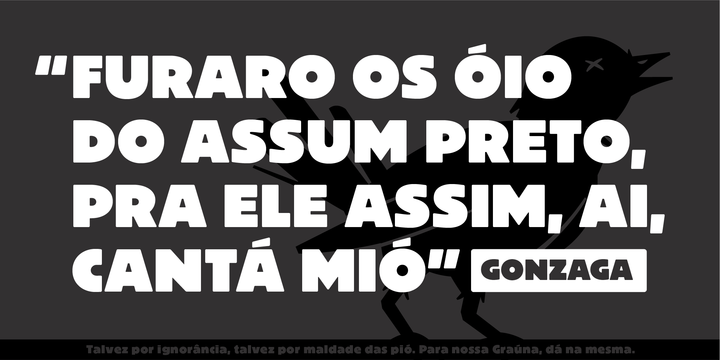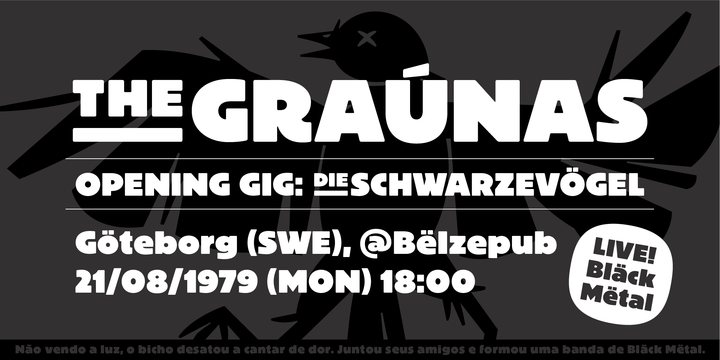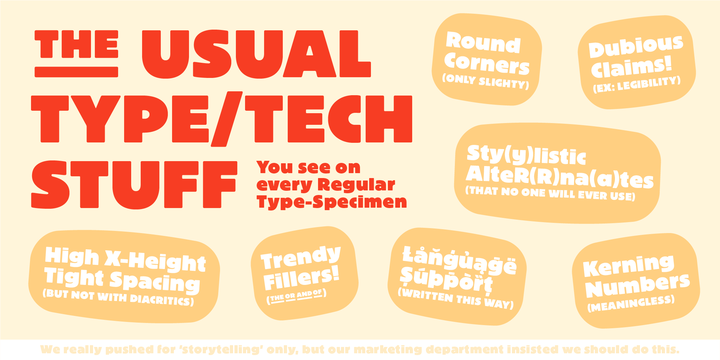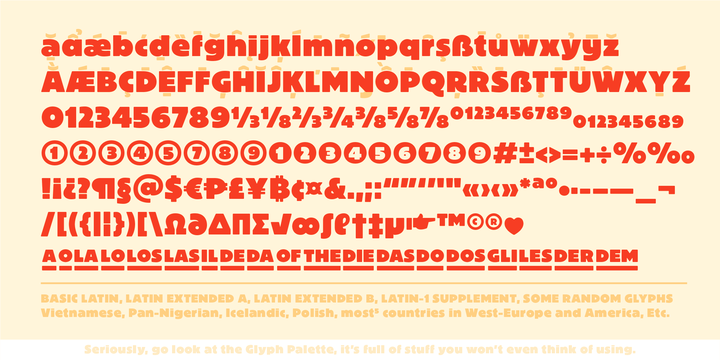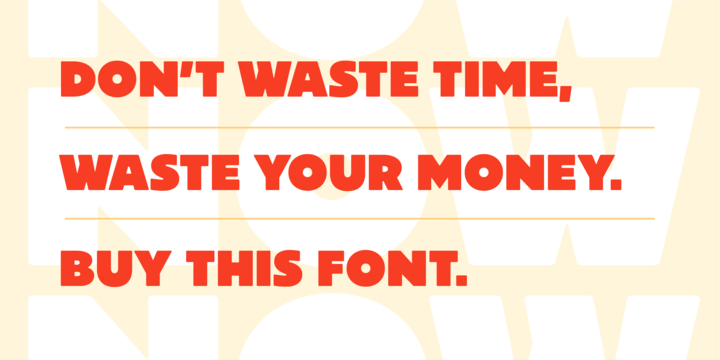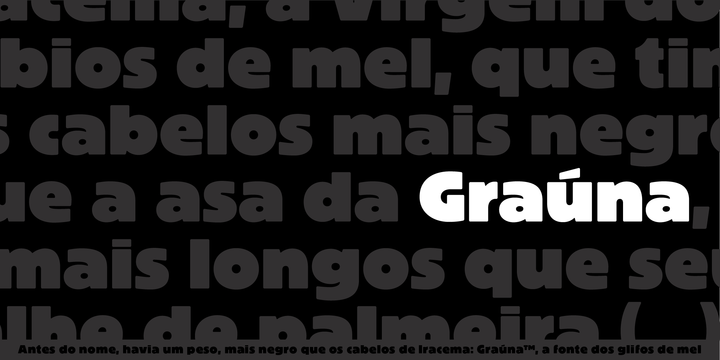
Grauna Font
Graúna is Typeóca’s first ‘serious typeface’. The idea was to produce a revival of Block Heavy, removing the ‘rough’ texture from its outline. Though other revivals existed, most of them approached the Block family as a whole, leaving aside the idiosyncrasies that make the Heavy weight so unique. In the early stages of its development, however, we realized that a lot of its quirkiness is only possible precisely because of the ‘rough’ texture we were trying to remove. That way, we started going further and further away from the original model, and thinking about the typeface in its own terms, resulting in an impactful yet friendly sans serif, ideal for logos and short titles.